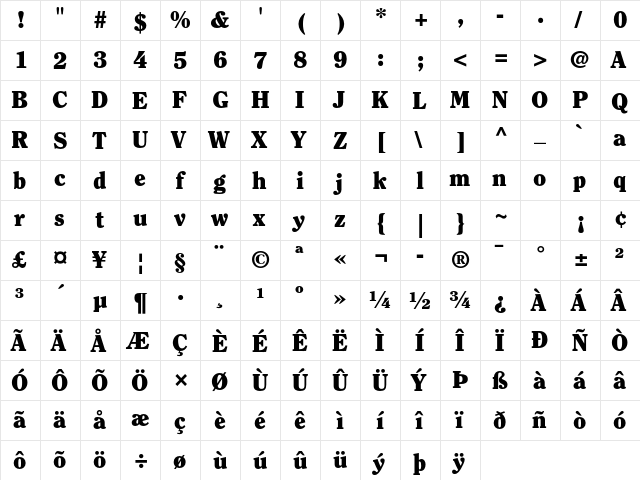
ITC Clearface Std Black Font Preview
ITC Clearface Std Black
ITC Clearface Std Black Font Details
| Designer | Vic Caruso |
Design Context for ITC Clearface Std Typeface
ITC Clearface Std takes a measured approach to typography — its balanced proportions and neutral character make it a reliable workhorse for both digital and print work.